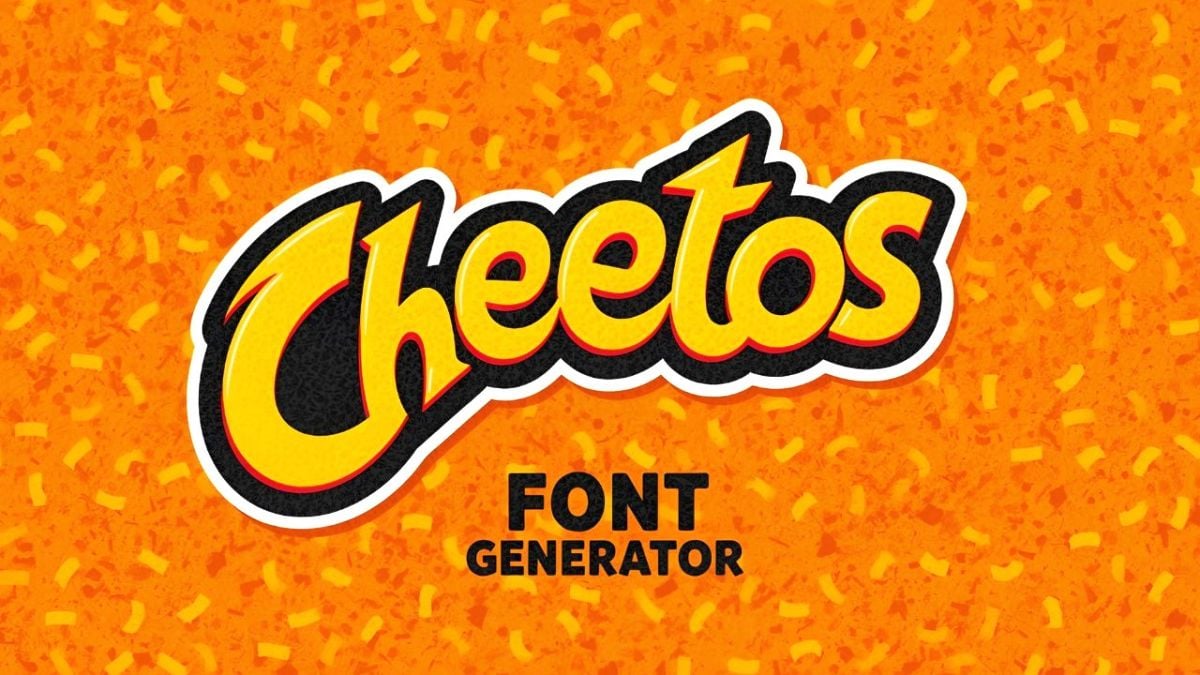
What is Cheetos Font?
Cheetos Crunch font captures the fun, crunchy essence of everyone’s favorite cheesy snack! This playful typography brings a delicious, crunchy character to your text designs. Our Cheetos Font Generator lets you create fun, cheesy text using the authentic Cheetos Crunch font. Perfect for snack-themed designs, children’s content, and playful digital projects.